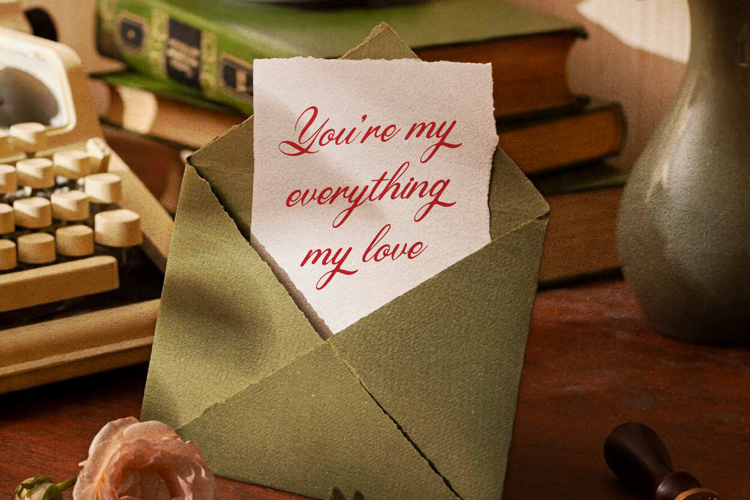
Malograh Font
Malograh | Handwritten Script Font, is suitable for any projects such as: logos, branding projects, homeware designs, product packaging, mugs, quotes, posters, shopping bags, t-shirts, book covers, name card, invitation cards, greeting cards, label, photography, watermark, special events, and all your other lovely projects that need a Script Font taste.